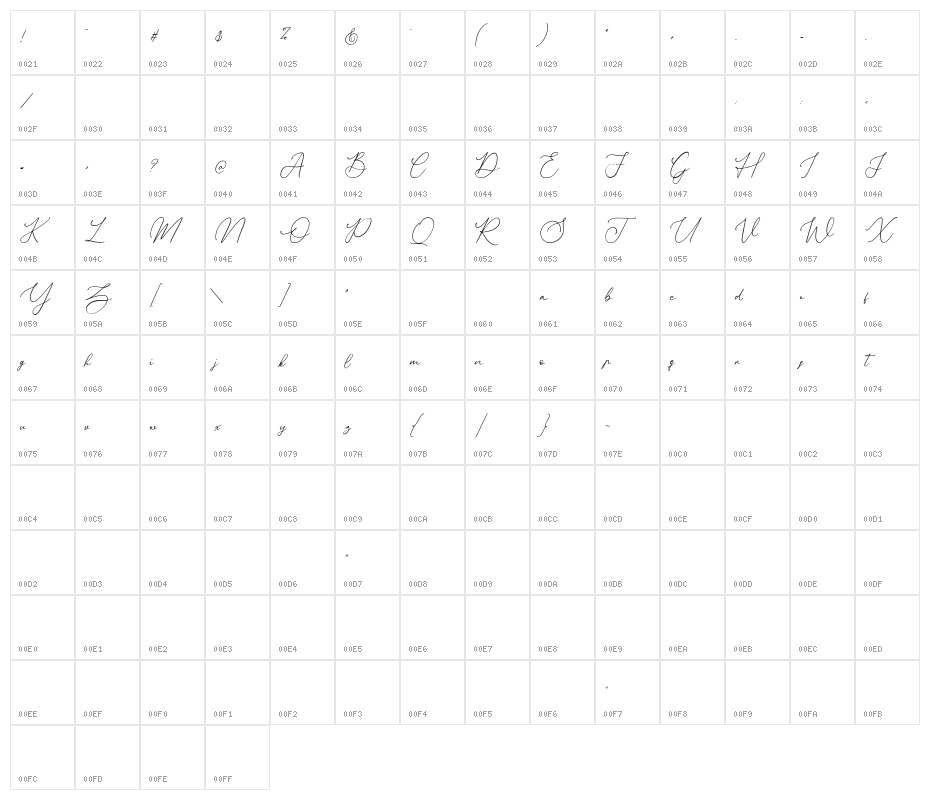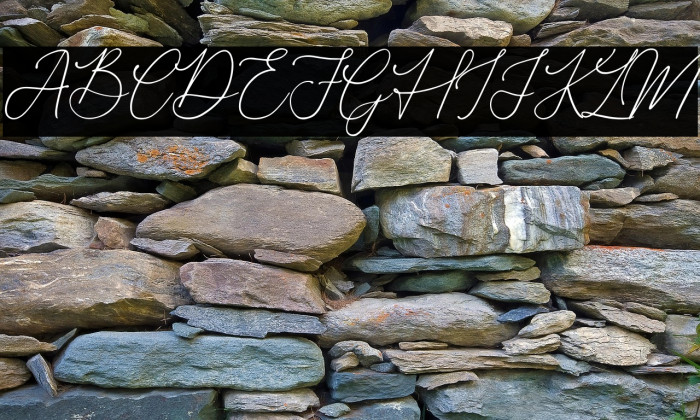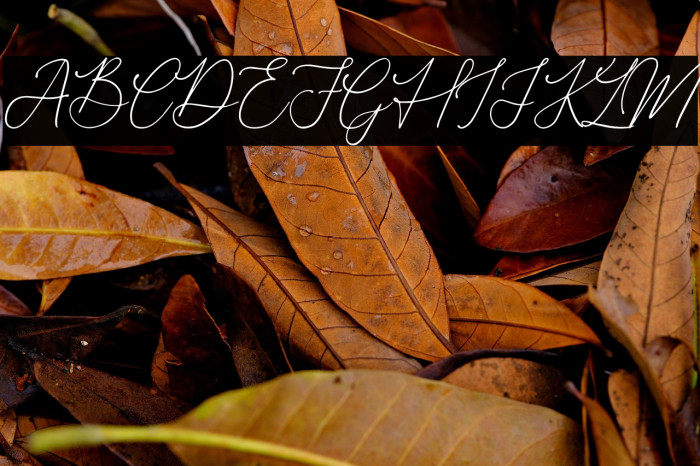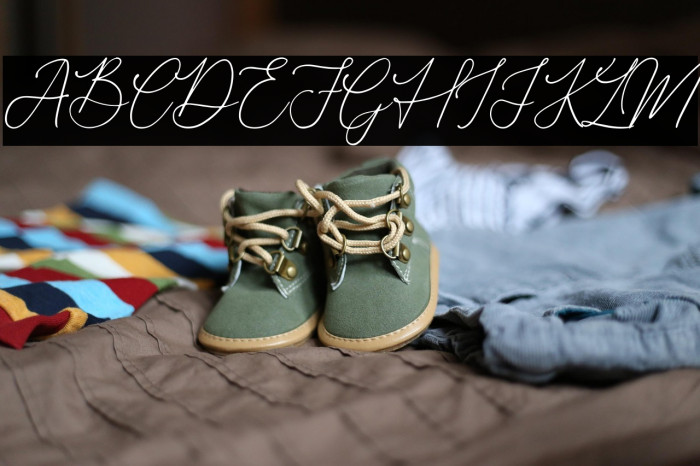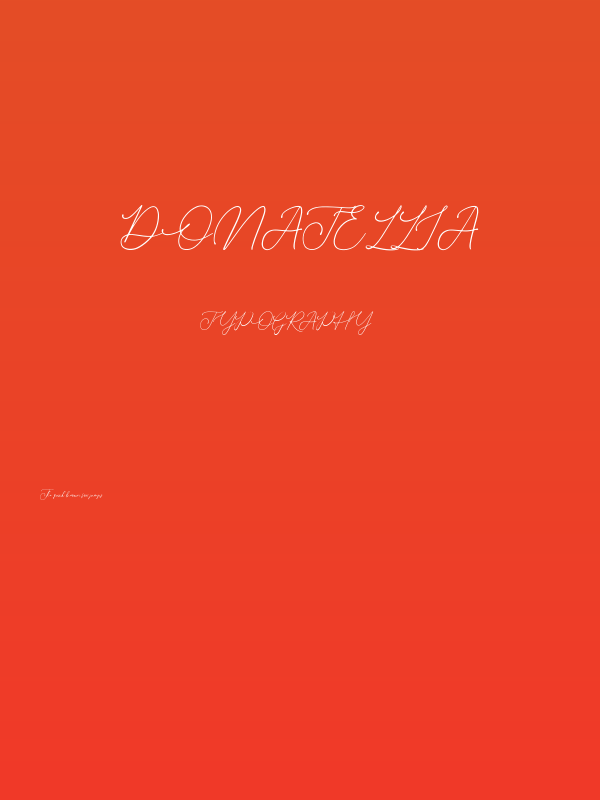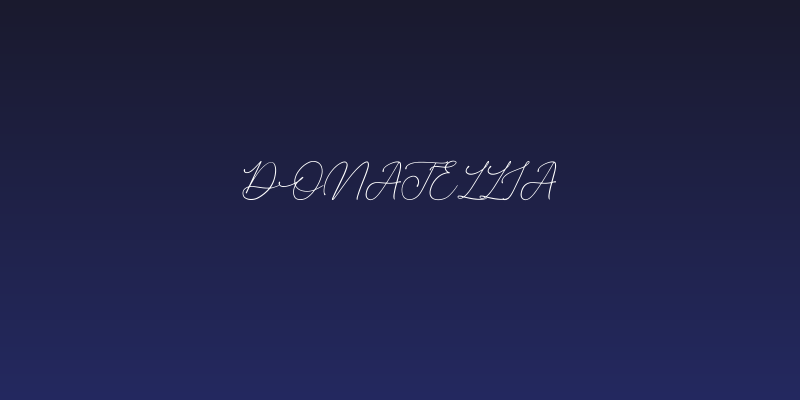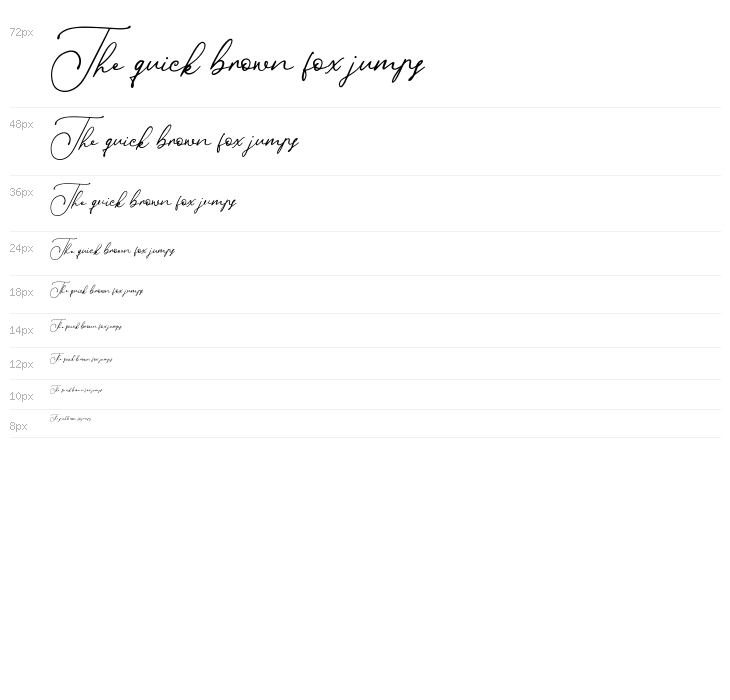
Donatellia Font
Donatellia Description
This elegant script font features flowing, cursive letterforms with a sophisticated and artistic flair. The uppercase letters are characterized by their sweeping curves and graceful loops, creating a sense of movement and fluidity. The lowercase letters maintain this fluidity with a slightly more compact and connected style, enhancing readability while preserving the font's decorative nature. The numerals and special characters are designed to complement the overall aesthetic, with similar curves and embellishments. This font exudes a sense of elegance and refinement, making it ideal for formal and creative applications.
| Overall Style | Elegant, Artistic |
| Proposed Projects | Ideal for wedding invitations, elegant branding, artistic posters, and personal stationery. |